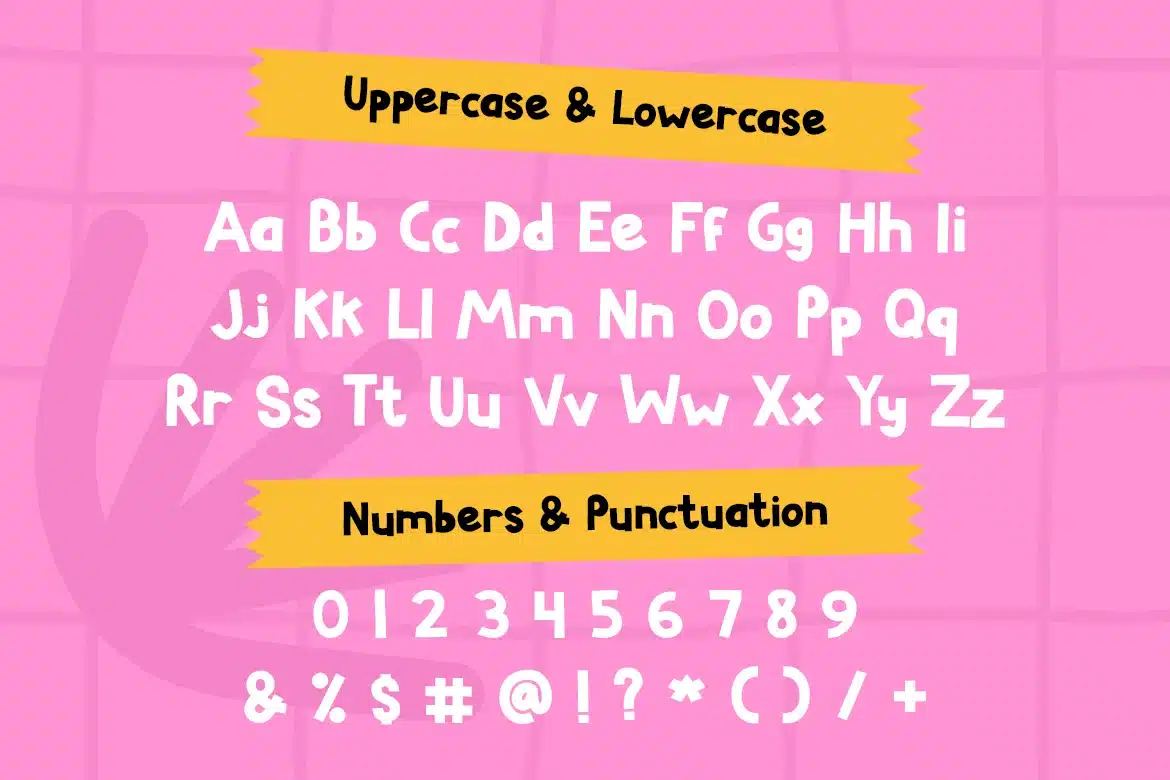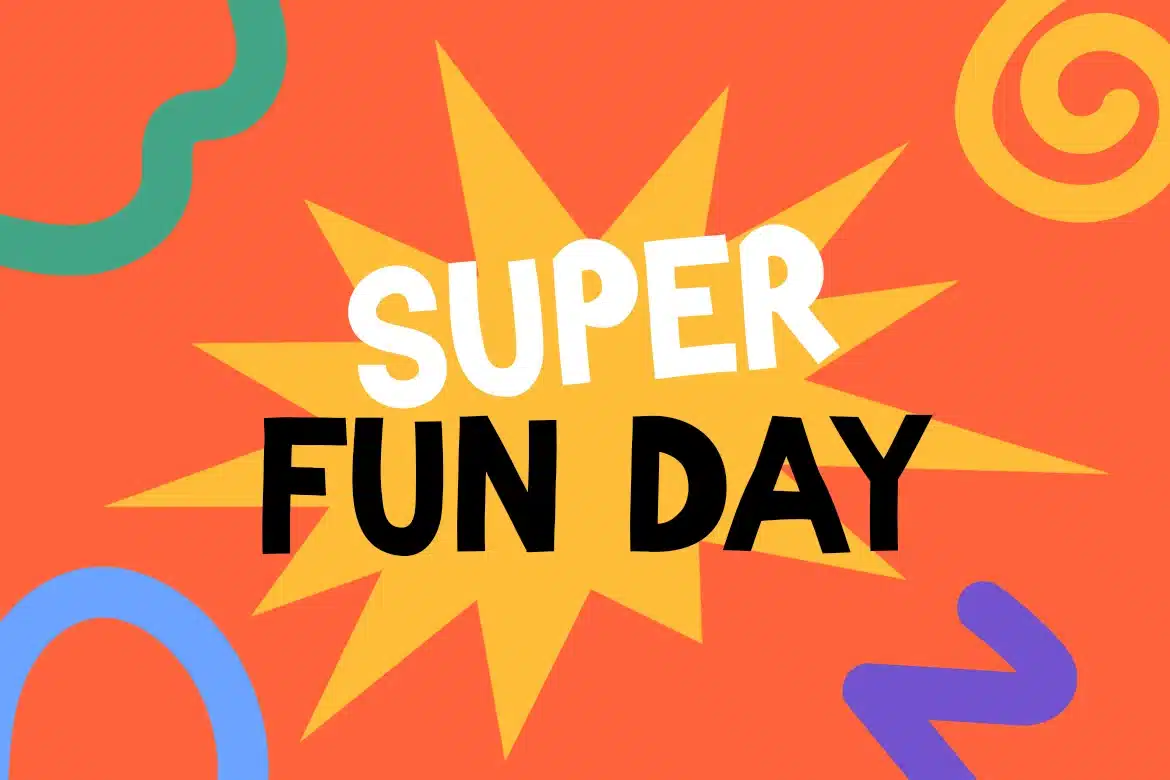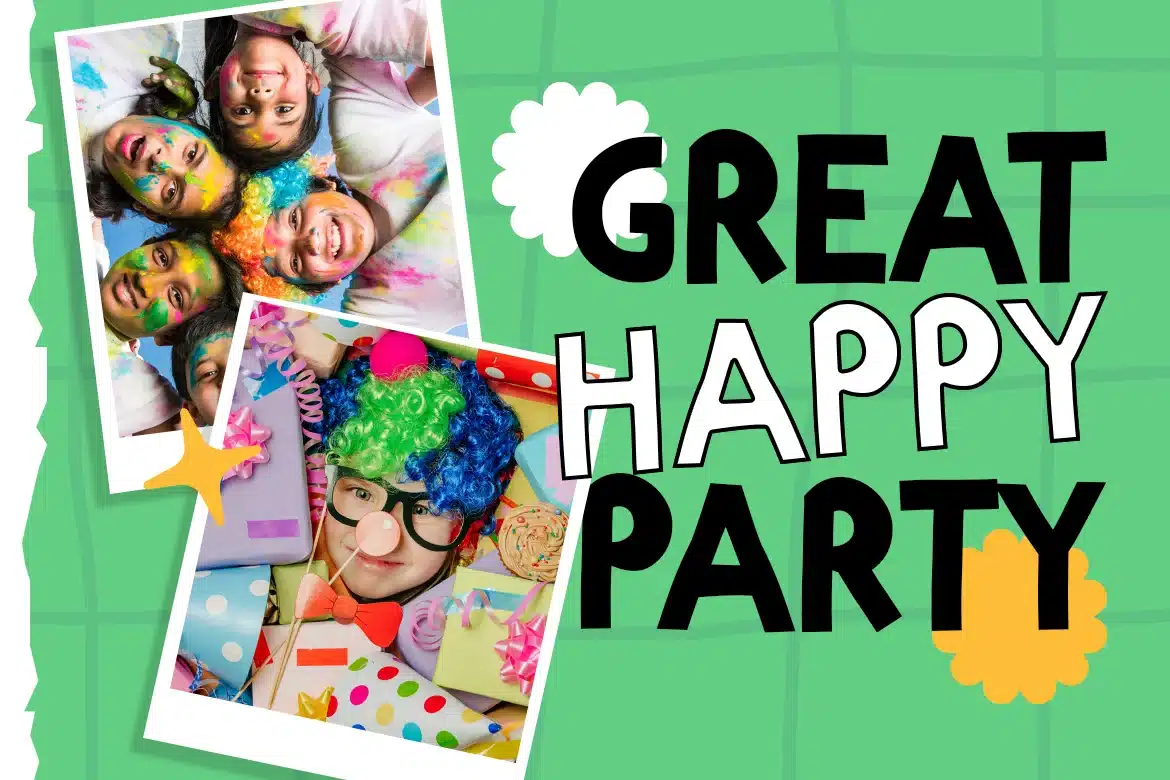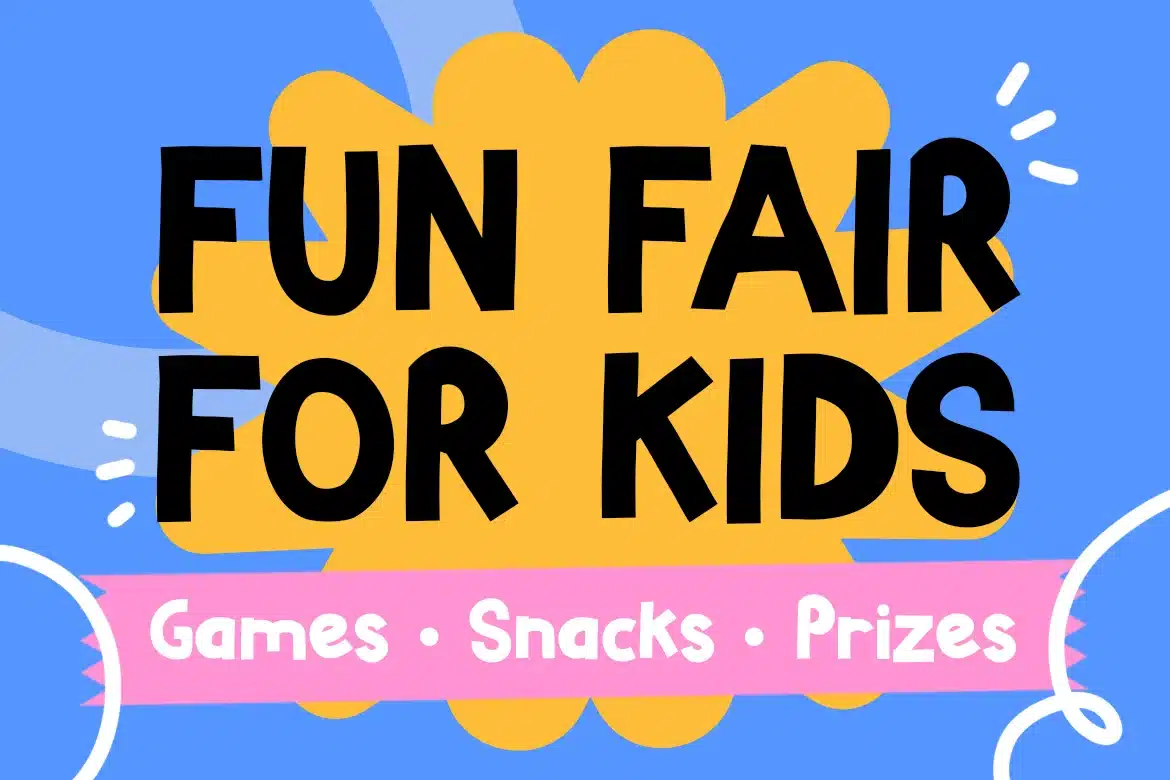
Lombardo – Fun Bold Display Font
LOMBARDO – Fun Bold Display Font
LOMBARDO is a bold playful display lettering style designed for eye-catching headlines and vibrant branding, featuring clean geometric shapes, low contrast strokes, and a confident upright structure that delivers strong visual impact. Its solid letterforms and balanced proportions create a modern, energetic vibe, making it perfect for kids events, posters, branding campaigns, social media graphics, and packaging designs. The font combines playfulness with structure, offering a clean yet expressive look that stands out without sacrificing readability.
In fast-moving visual spaces like event posters, branding campaigns, social media, and kids-focused promotions, LOMBARDO helps your message stand out with bold clarity. Its geometric and playful style is perfect for fun fairs, kids clubs, creative workshops, product launches, and promotional graphics, where attention-grabbing headlines are essential. The font delivers a strong, friendly tone that appeals to both children and modern audiences.
For designers and brands aiming to create high-impact, energetic visuals, LOMBARDO offers a reliable solution that blends structure with playful personality.
Key Features :
Bold Geometric Letterforms
- Clean shapes with strong visual presence
- Low contrast strokes for consistent readability
- Structured design with a modern playful touch
High Impact Headlines
- Perfect for posters, banners, and promotional graphics
- Creates strong hierarchy in branding and advertising
- Ideal for events, campaigns, and social media content
Modern Playful Style
- Balances fun personality with professional clarity
- Suitable for kids branding and creative industries
- Adds energy to colorful and dynamic layouts
Versatile Design Use
- Works across print and digital platforms
- Great for logos, packaging, merchandise, and UI
- Designed for designers, marketers, and content creators
Make your headlines louder, clearer, and more engaging with LOMBARDO. Whether you're designing event posters, kids branding, or vibrant marketing campaigns, this bold display style helps you capture attention instantly.